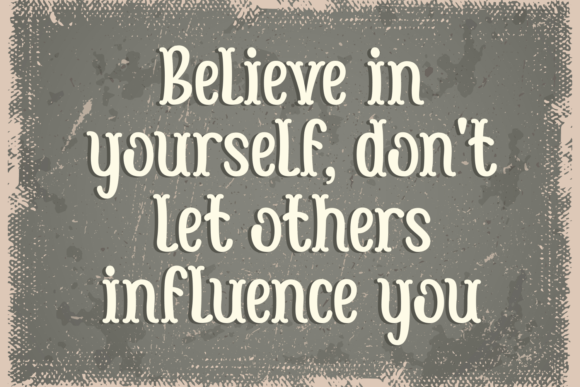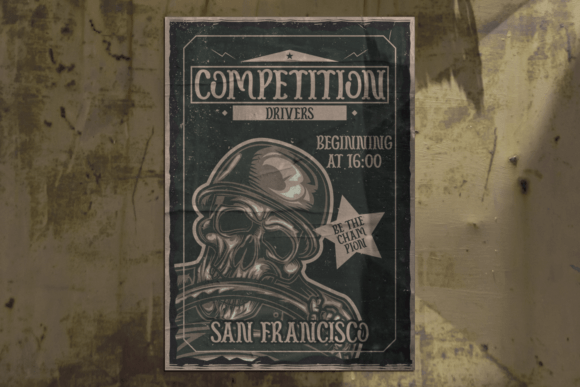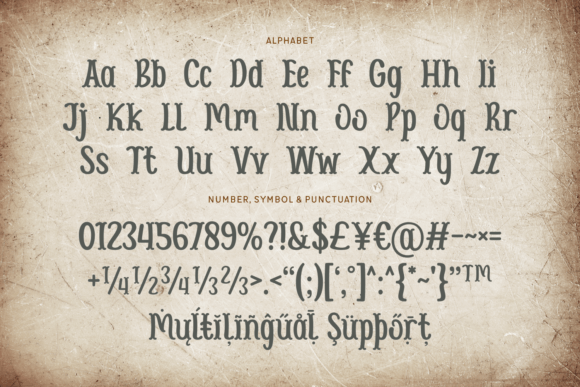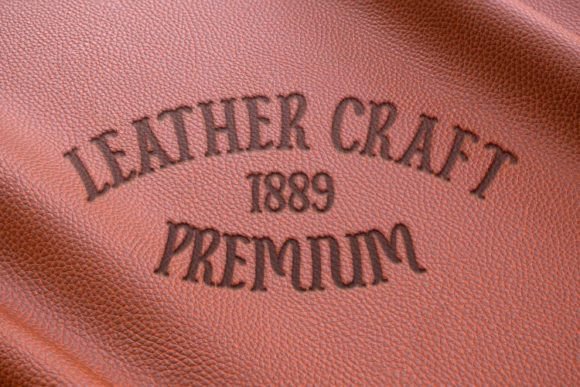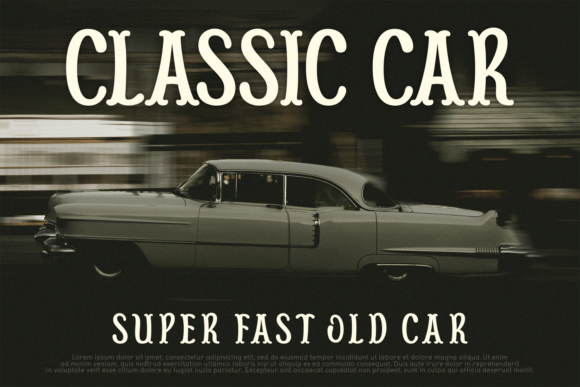
Introduction to Never Stop Believing Font
Never Stop Believing is a cool serif font with a retro feel.
Add it to labels, product packaging, branding designs, or items that need a tough and stylish look .
Key Features of Never Stop Believing Font
Why Choose Never Stop Believing Font?